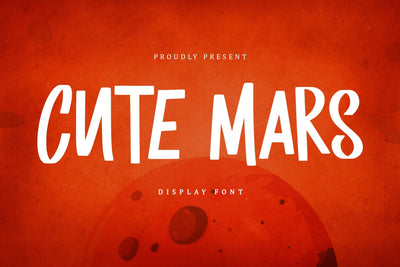
Cute Mars - Display Font
Cute Mars is a playful handwritten font that adds a delightful charm to designs. Ideal for greeting cards, children’s projects, and social media graphics, its whimsical style brings creativity and fun to any visual concept.